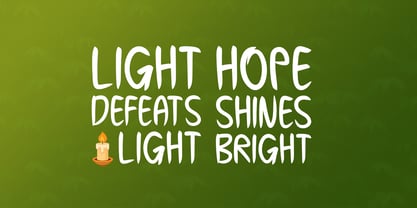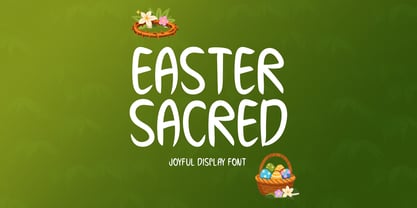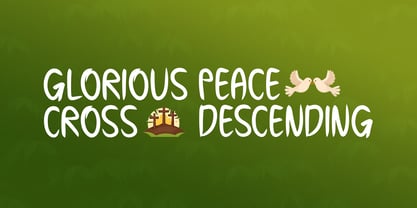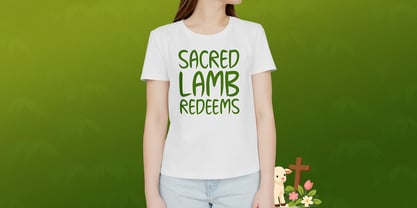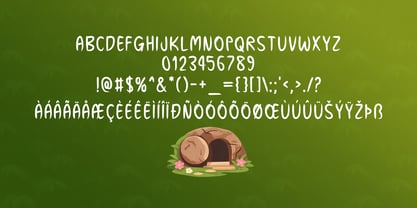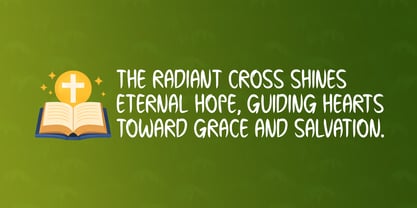
Easter Sacred
by Seemly Fonts
The Easter Sacred Font Family was designed by Md. Sohail Bhuiyan and published by Seemly Fonts. Easter Sacred contains 1 styles. More about this family
Easter Sacred is a joyful display font inspired by faith, peace, and the spirit of Easter. Its soft brush strokes and playful shapes create a warm and friendly visual style that feels both uplifting and inviting. Perfect for Easter designs, Christian quotes, greeting cards, and inspirational typography, this font adds a meaningful touch to creative projects. Easter Sacred brings a beautiful sense of hope, celebration, and spiritual charm to every design.
Designers: Md. Sohail Bhuiyan
Foundry: Seemly Fonts